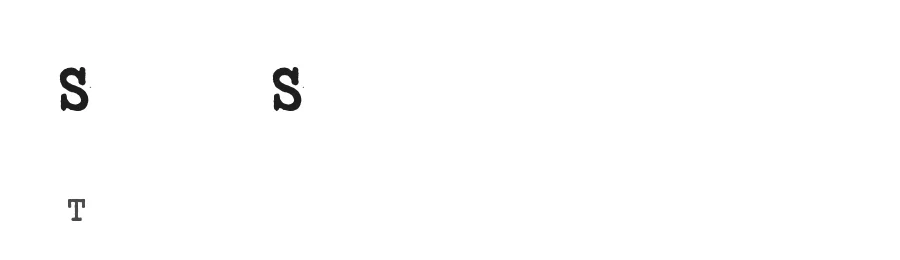
About Noir Font
Noir is a decorative font designed by Thomas Canale. It includes 128 glyphs, a bold weight, TTF (TrueType) format, and 107 languages. Noir is free to download; check the license details on this page before commercial use. Decorative fonts like Noir work best for logos, posters, packaging, and standout headlines.
Noir Font is a decorative font that shines as a display or heading face. Pair it with a clean sans-serif or serif font for body text β the contrast creates a clear hierarchy while the two styles stay balanced and easy to read.